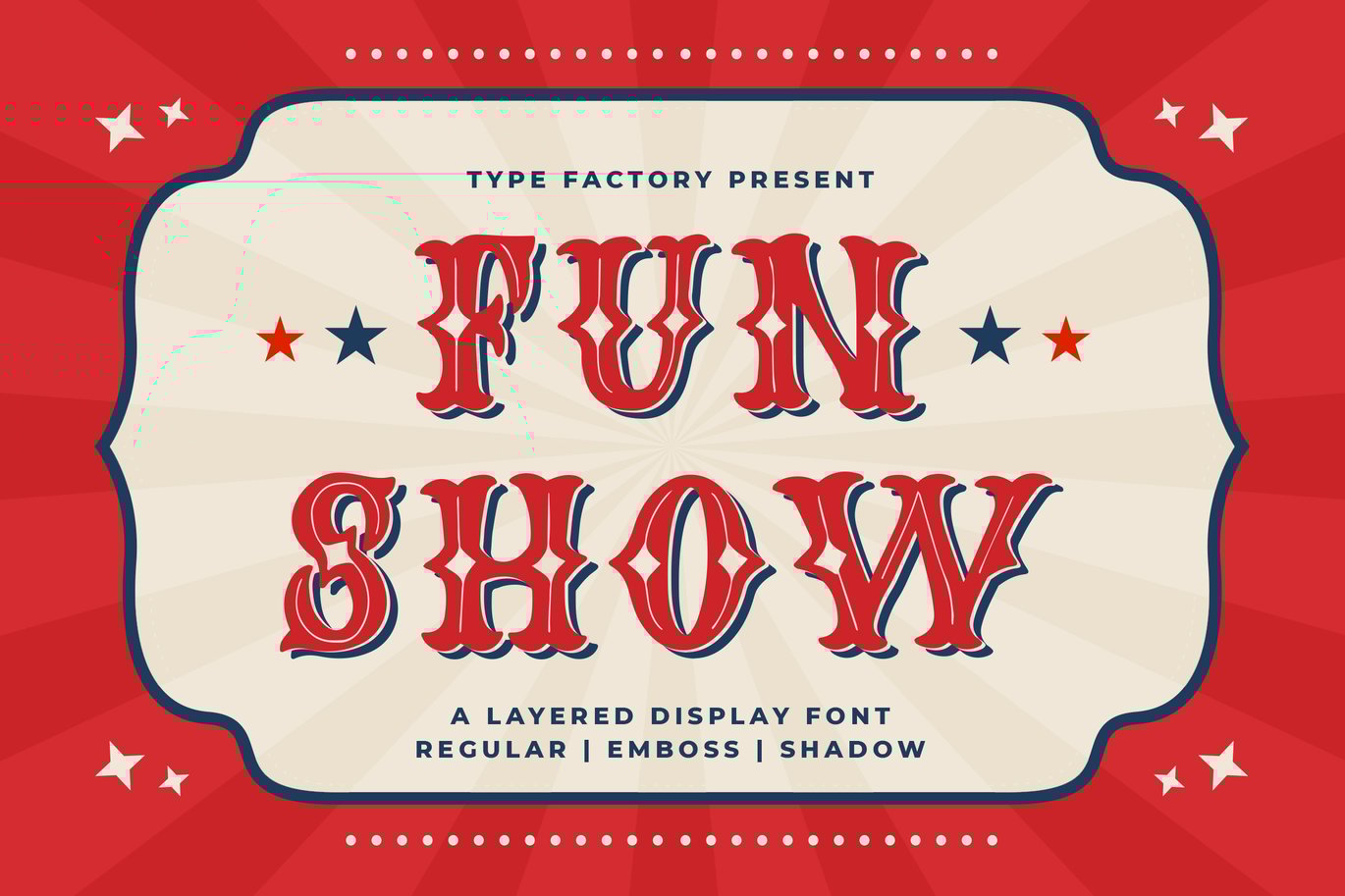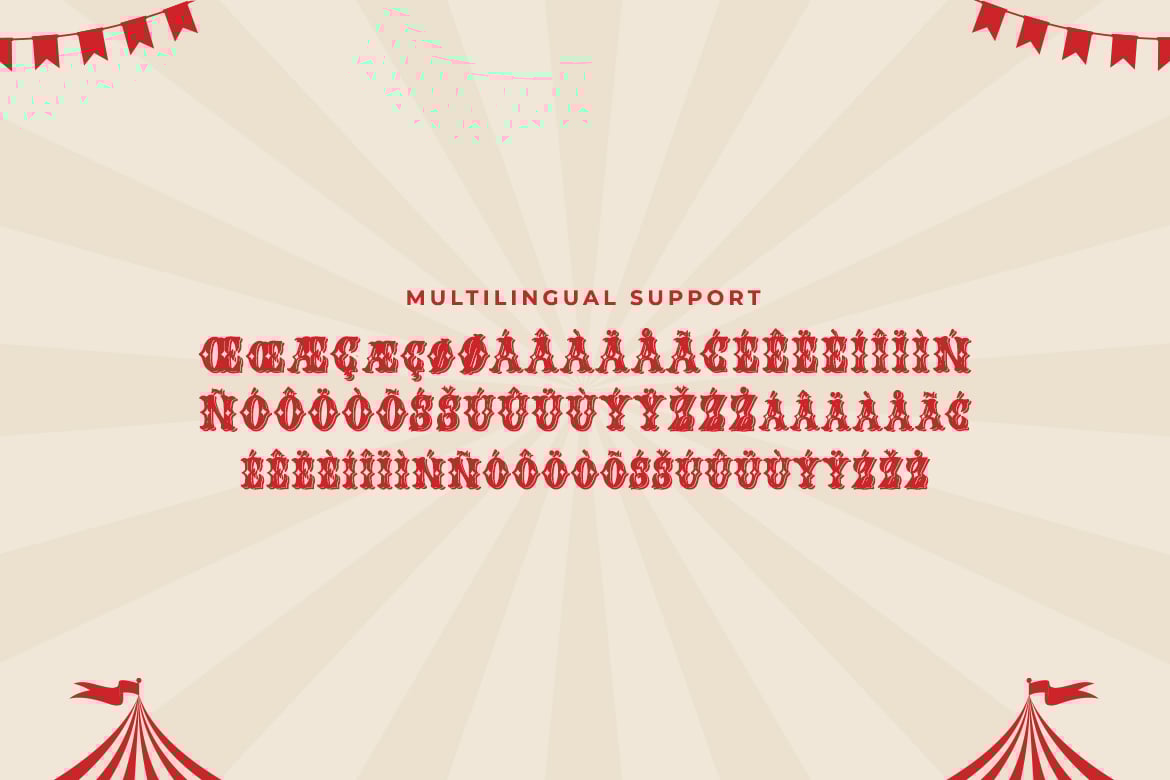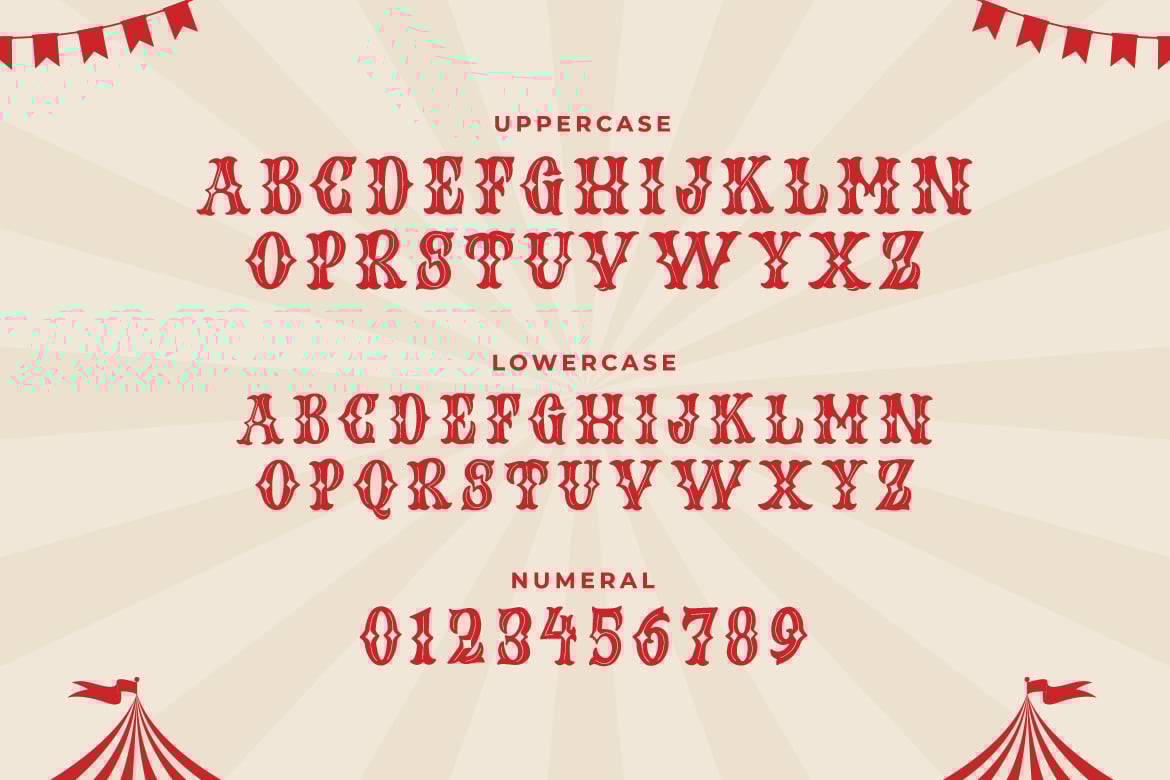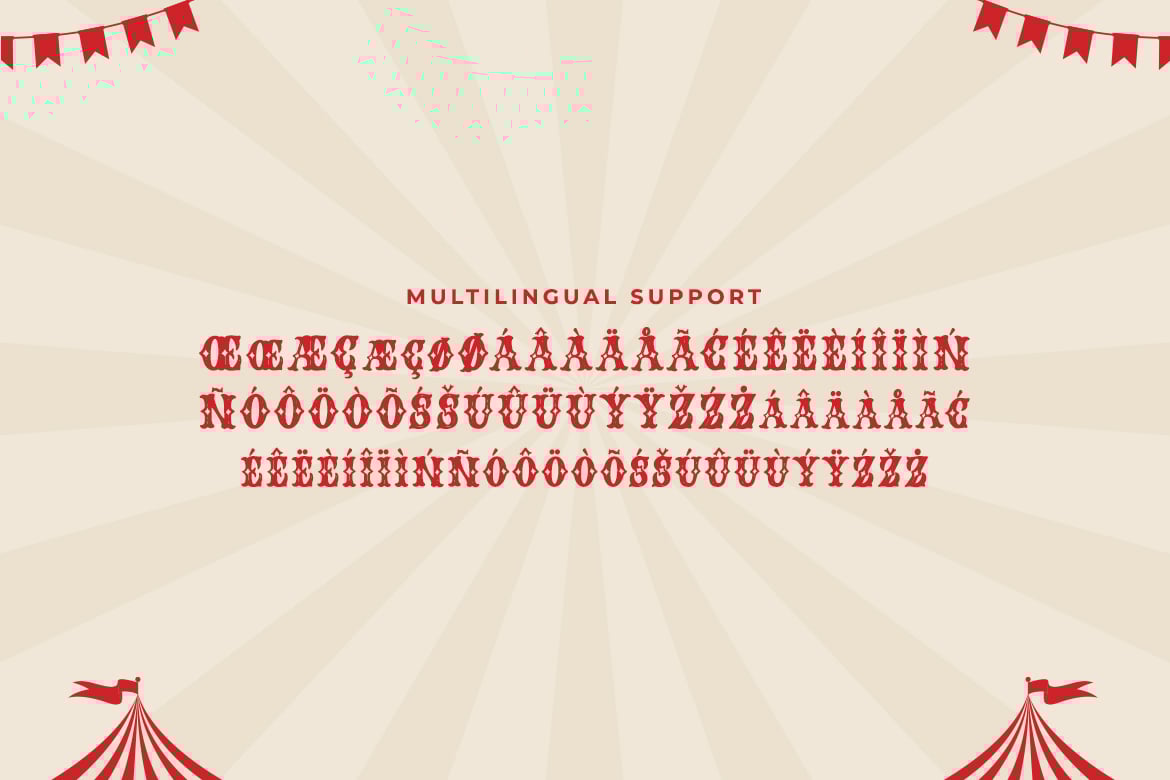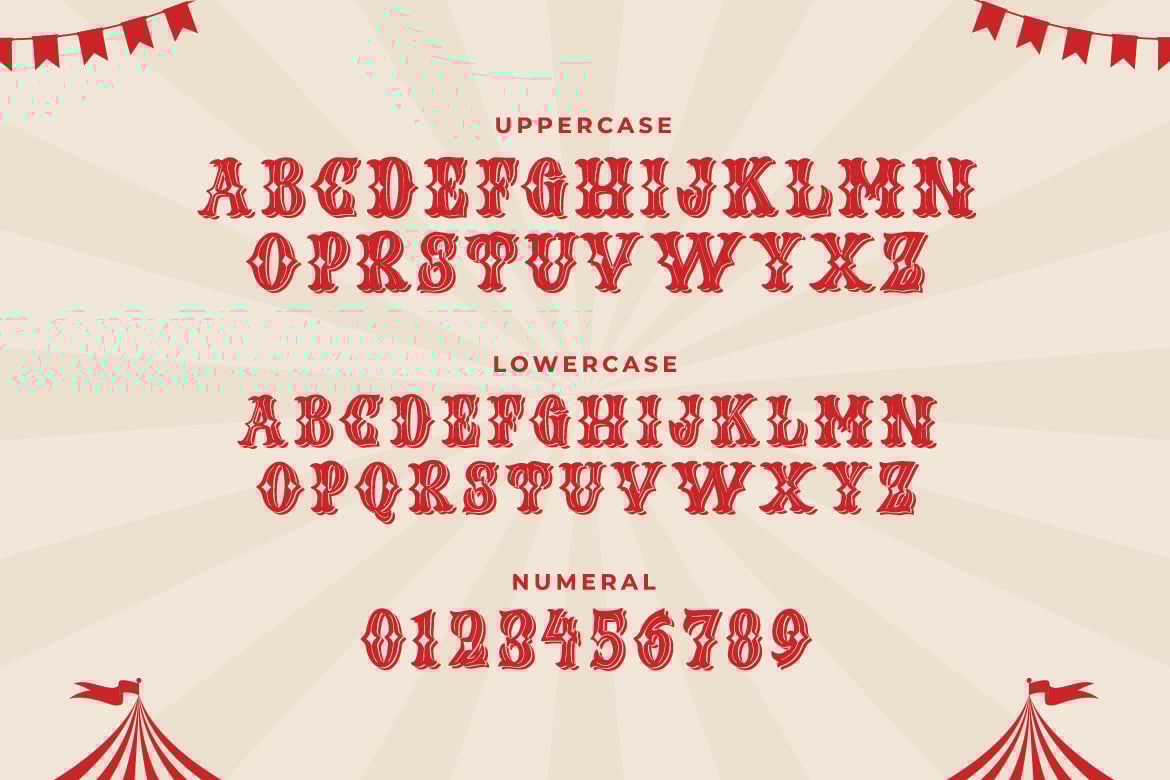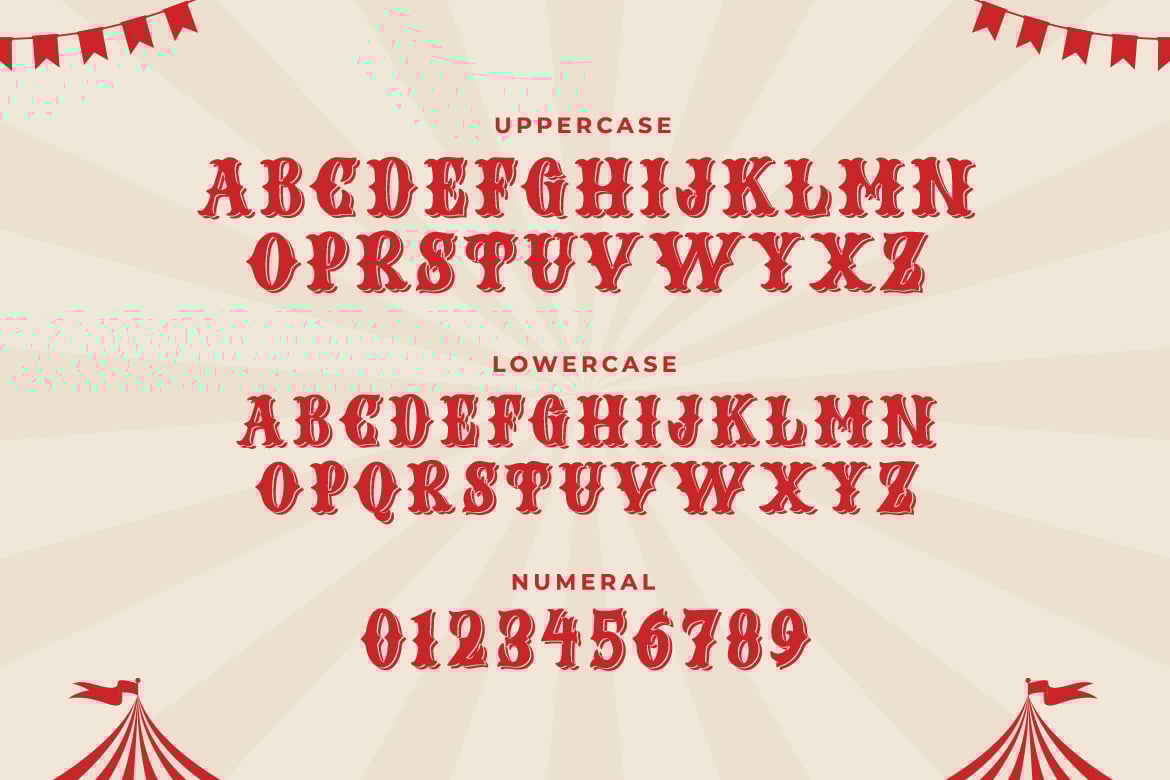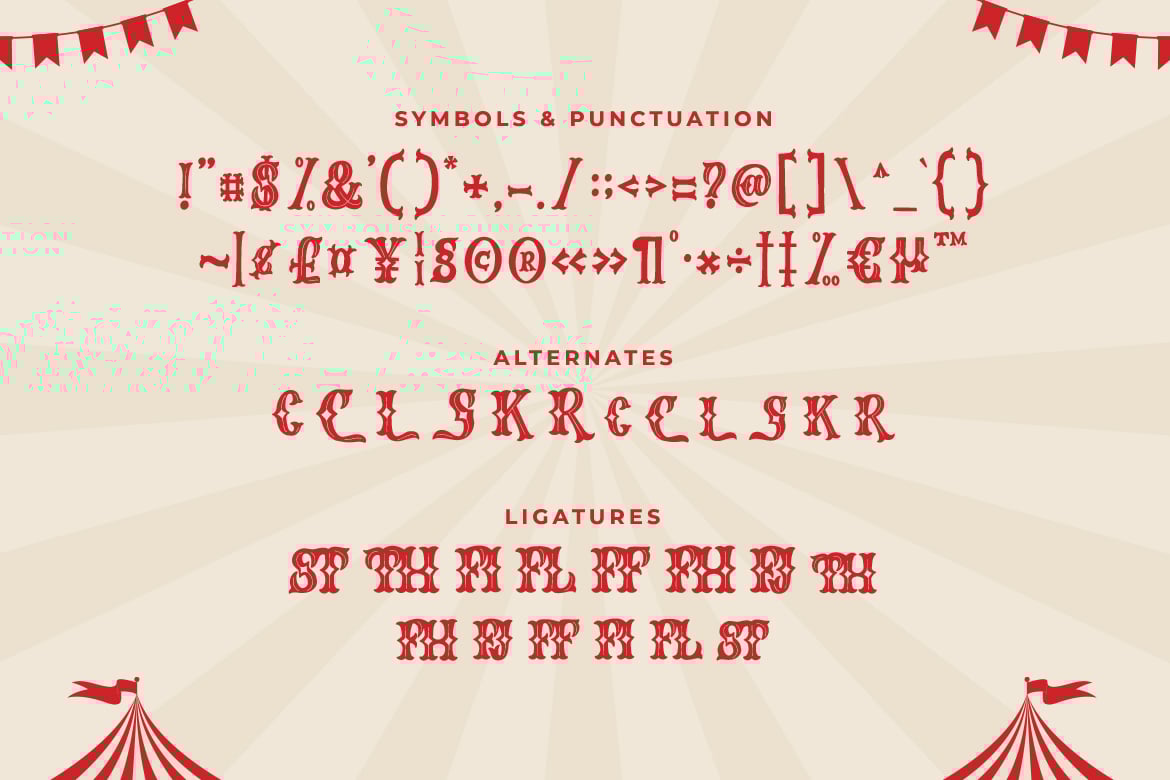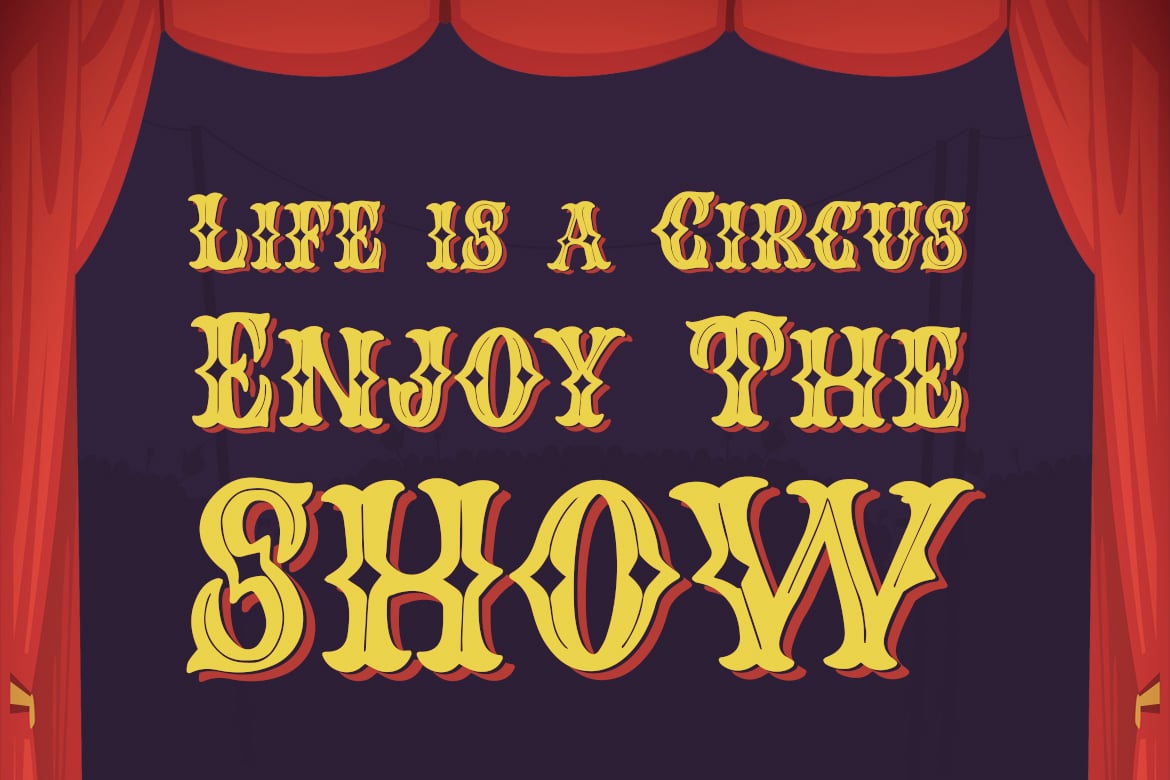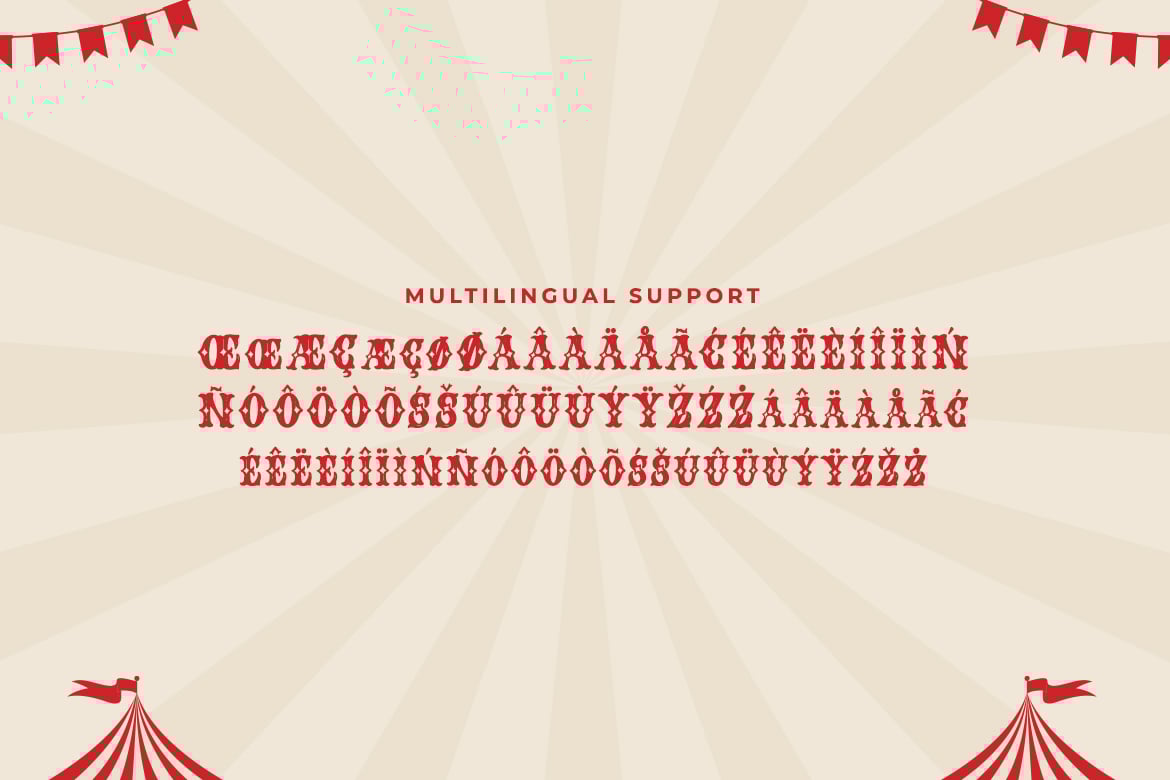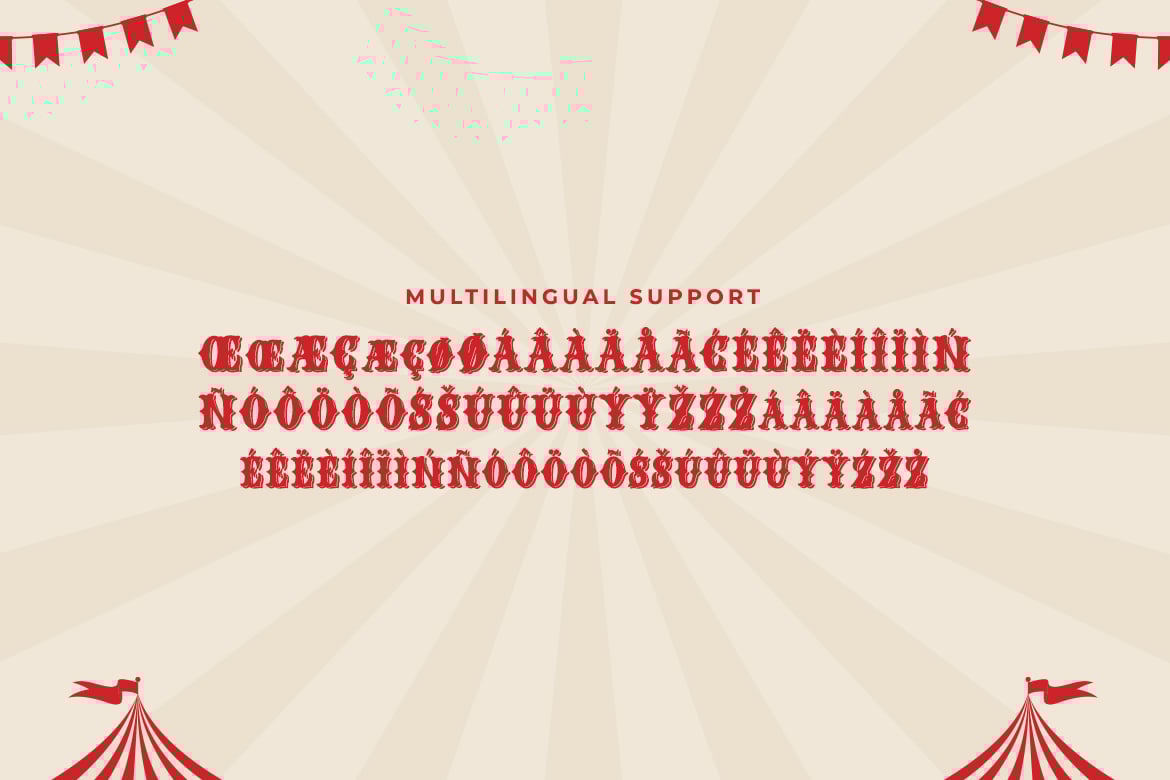
Fun Show – Amazing Layered Display Font
Fun Show is an amazing layered display font with playful feels.
Fun Show has 4 fonts, the four fonts are used with the layers method, so it can generate interesting fonts to see, you no longer need to worry about how to make an effect on the text.
This font looks spectacular in packaging design, displays, and logotype.
Keep your designs fresh and current with a fun vibe with this font.